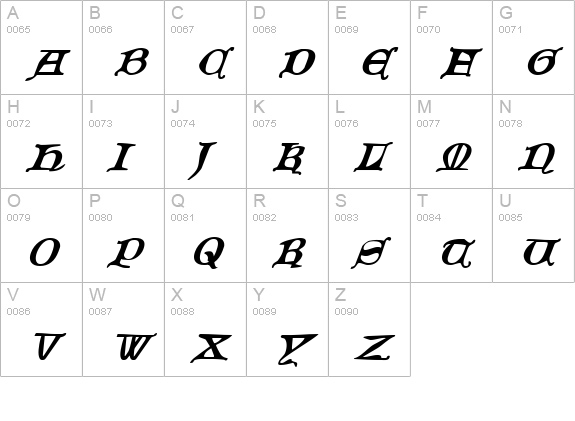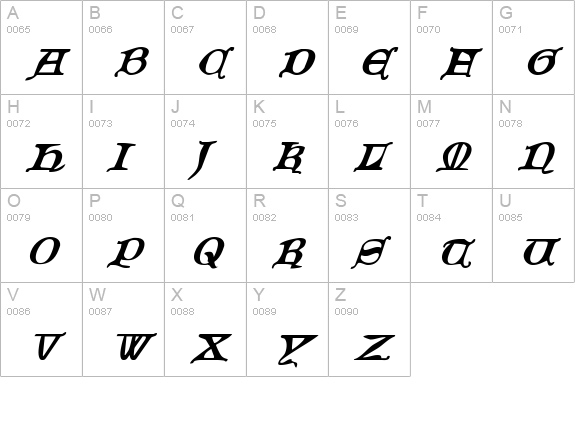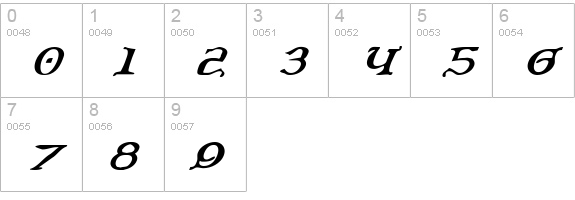
Queen & Country Italic is a distinctive, italic variant in the Queen typeface family \xE2\x80\x94 well suited to design and typography projects.
Queen & Country Italic font is a stunning and elegant typeface that exudes regal charm and sophistication. With its graceful curves and delicate serifs, this font is perfect for adding a touch of royalty to your designs. The italic style adds a sense of flair and drama, making it ideal for titles, headings, and other prominent text elements. Best of all, Queen & Country Italic font is available for free download at FontsMarket.com. Whether you're working on a project that requires a touch of elegance or simply want to add a regal touch to your designs, this font is sure to impress. Download Queen & Country Italic font today and elevate your designs to the next level with its timeless beauty and grace.